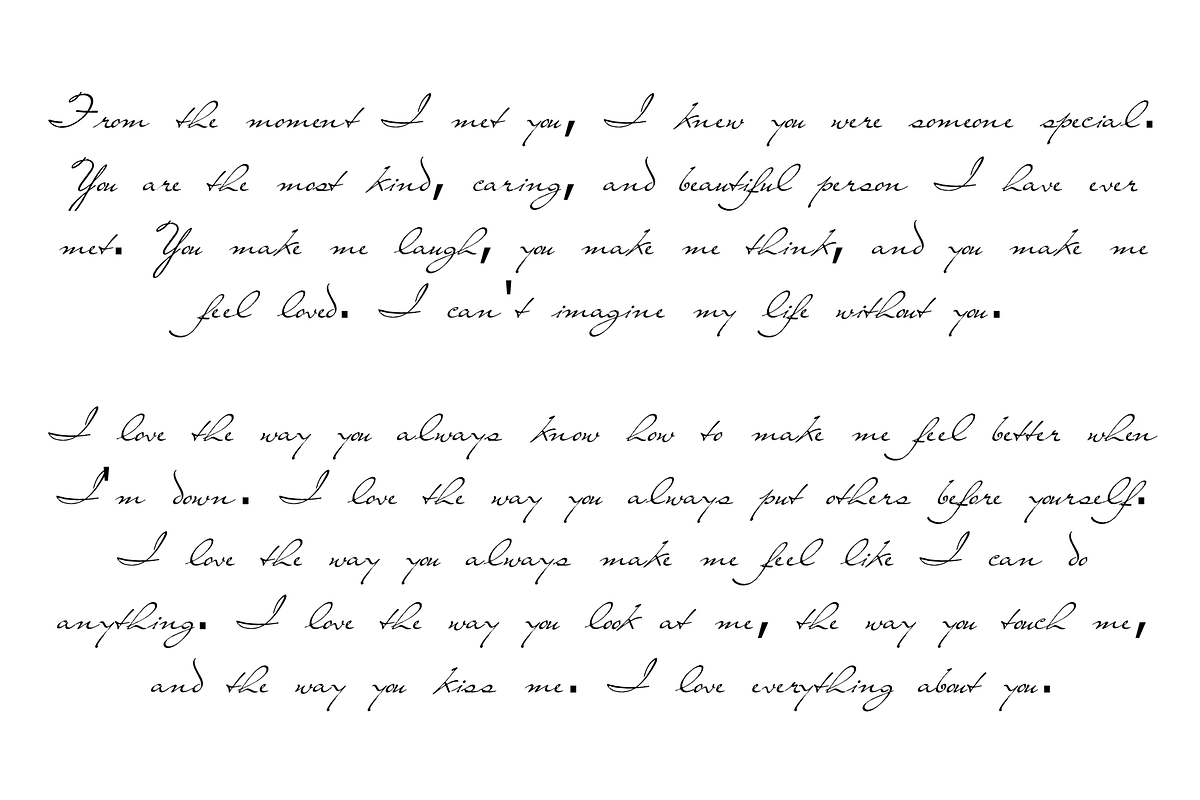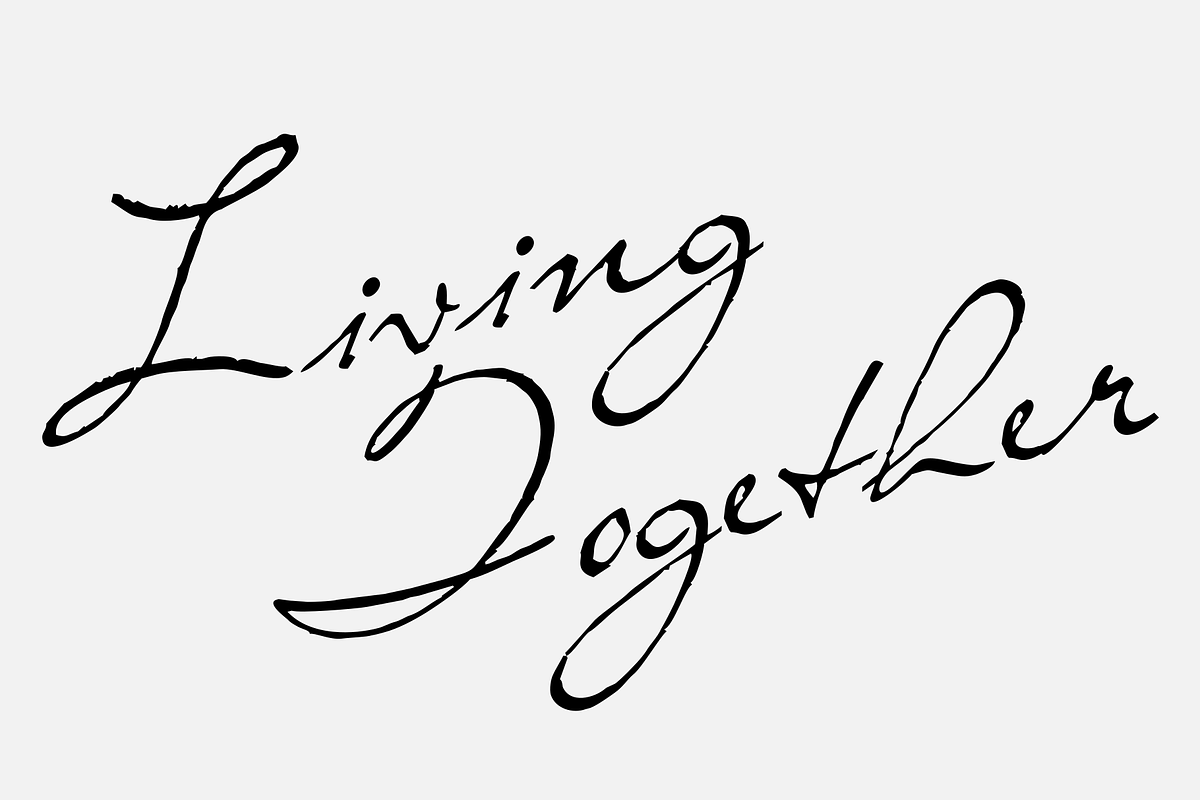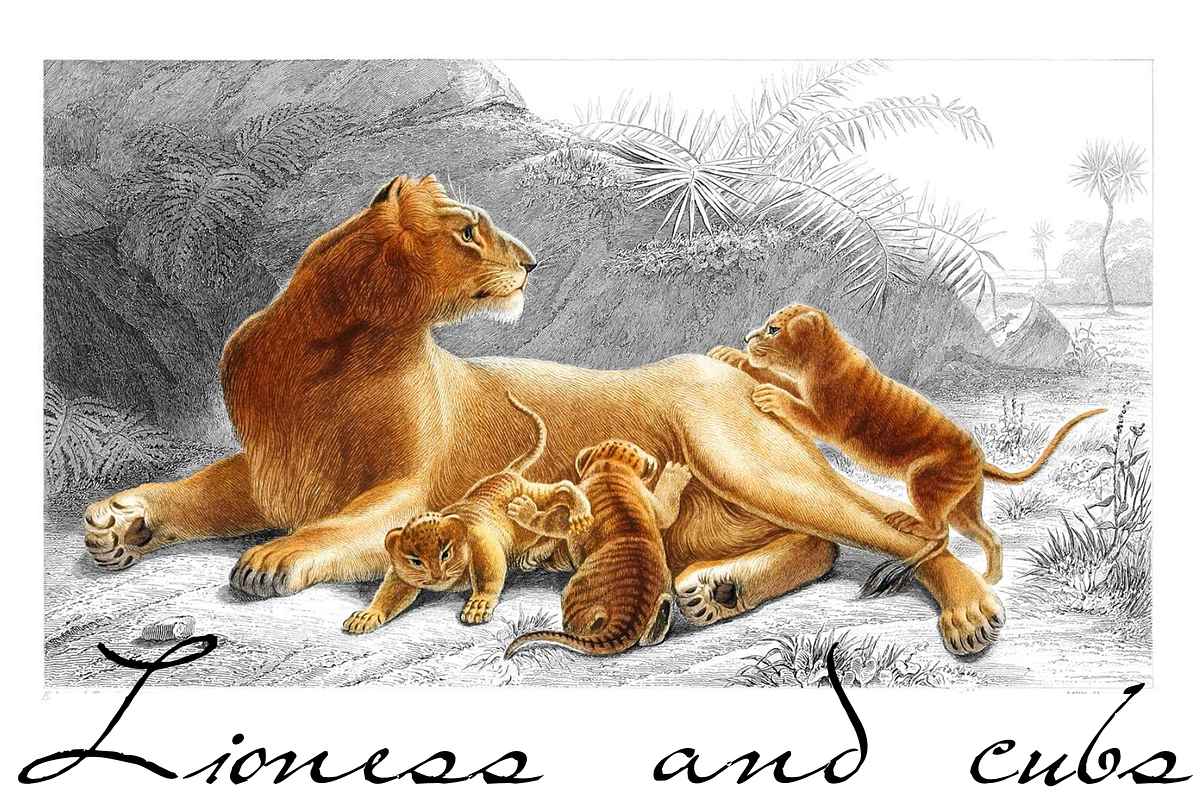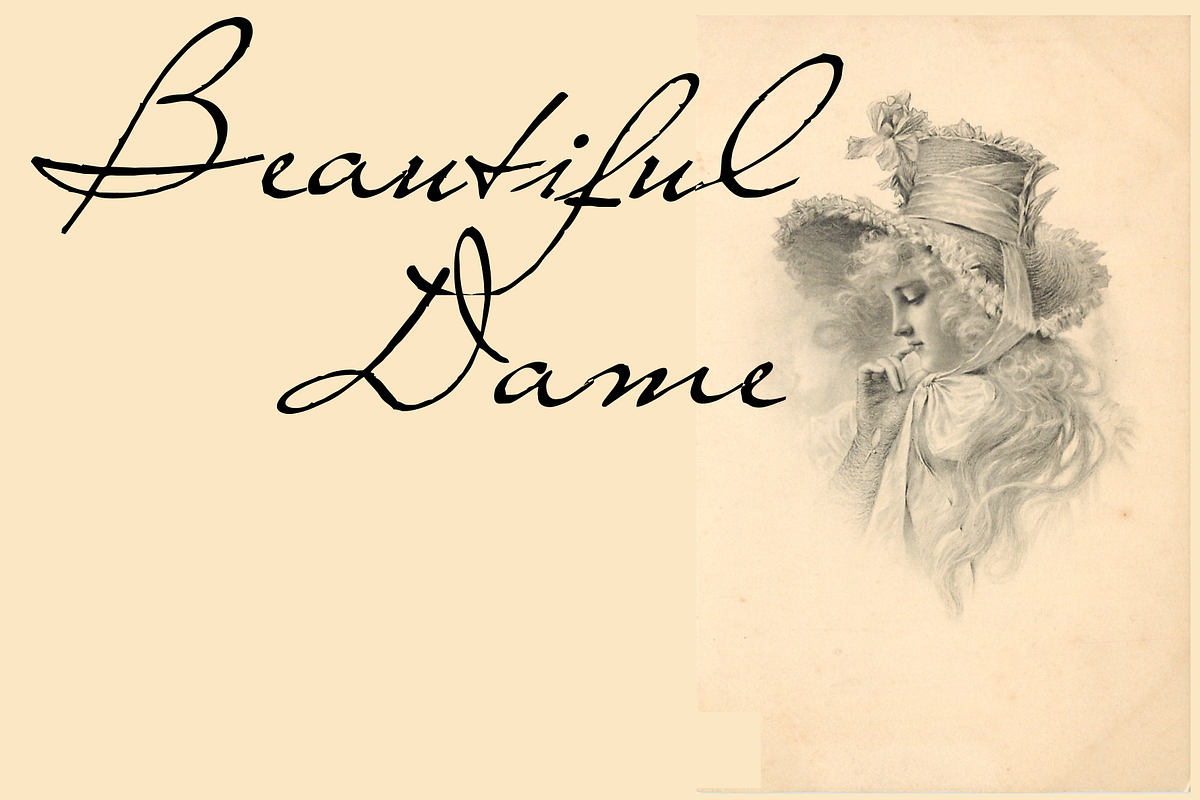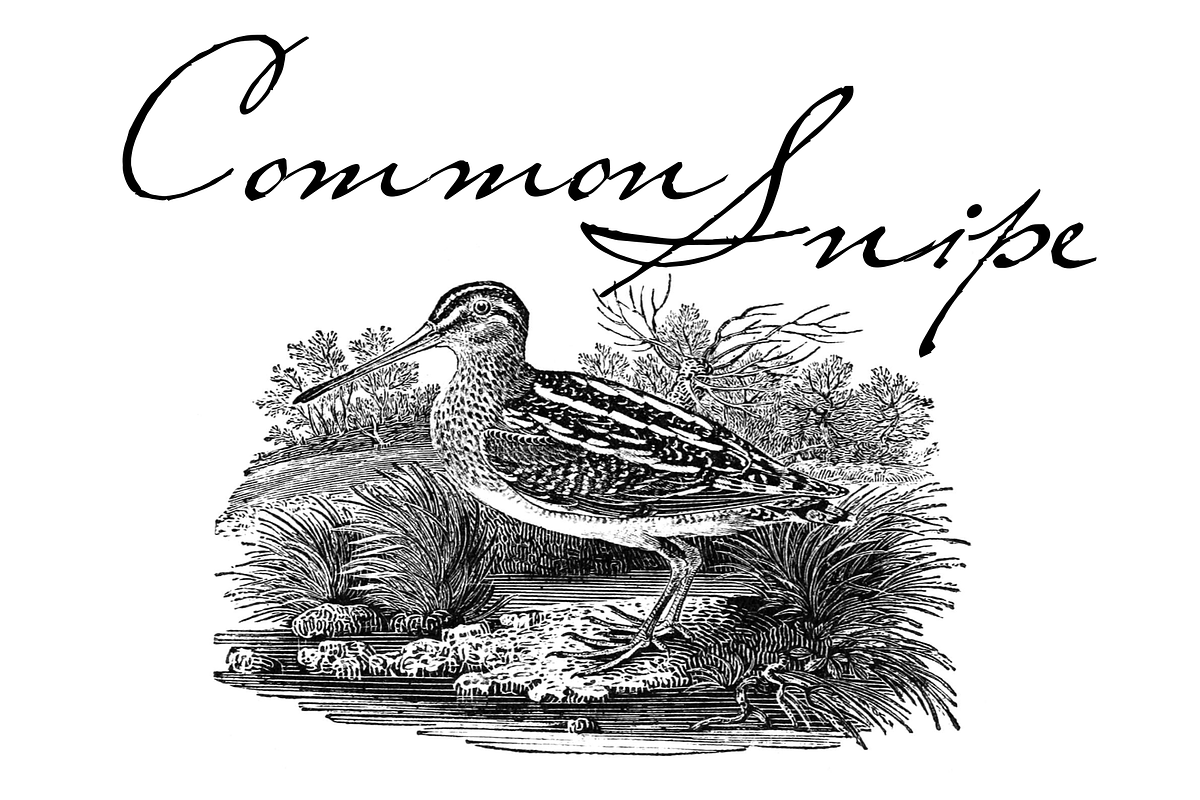
Living Together FC
Living Together is a casual, handwrittten font with tons of movement and style. This script looks anchored in yesteryear, and can add a thematic feel to your works.